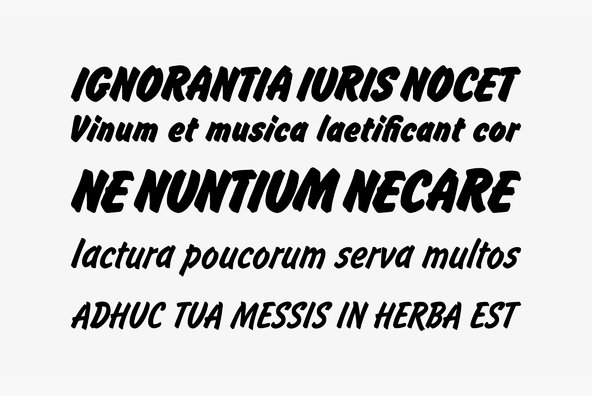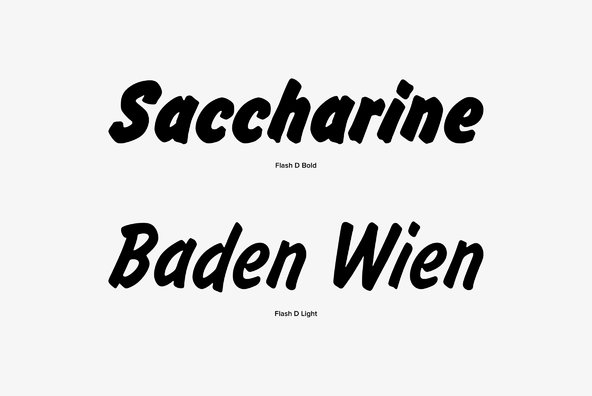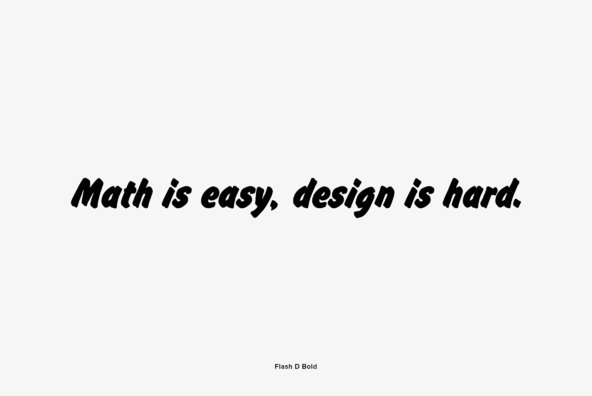
Flash was originally designed by American graphic designer Edwin W. Shaar in 1939. Flash contains a great visual presence of hand-painted signage from the mid 1900's.